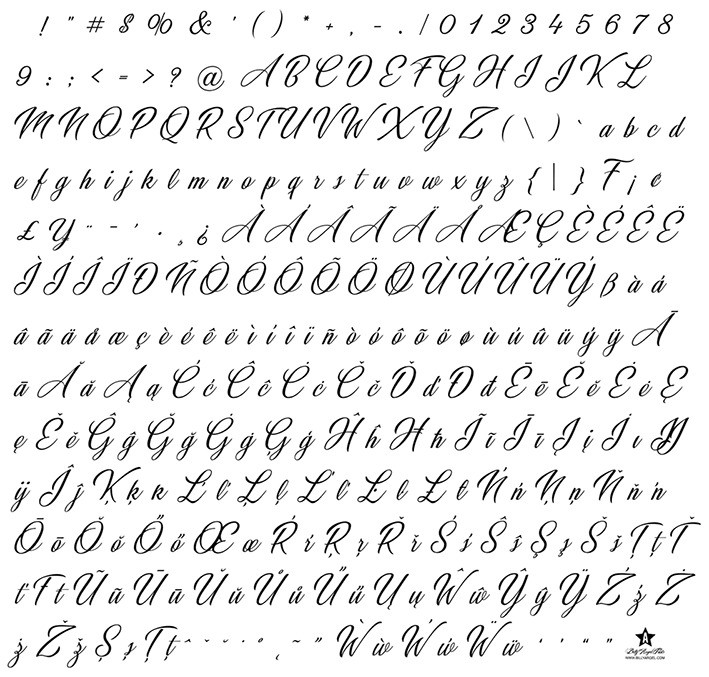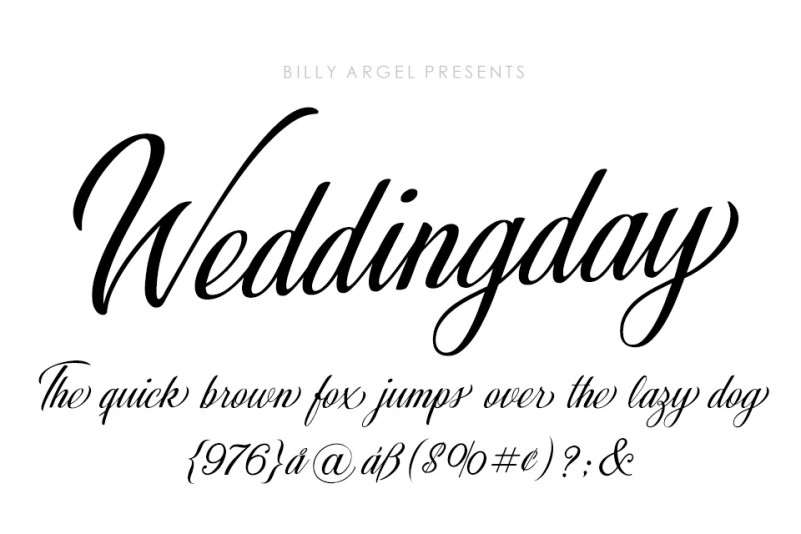
Weddingday Font
Weddingday Calligraphy Font, It can easily be matched to an incredibly large set of projects, so add it to your creative ideas and notice how it makes them stand out!